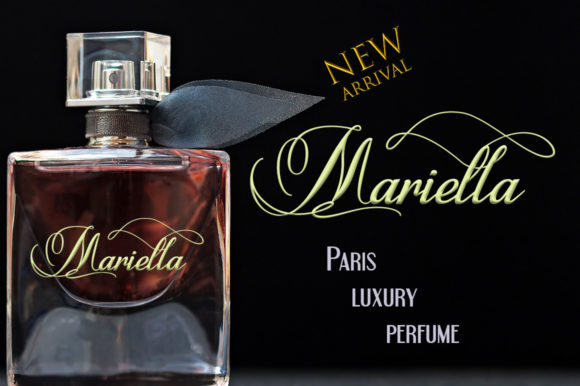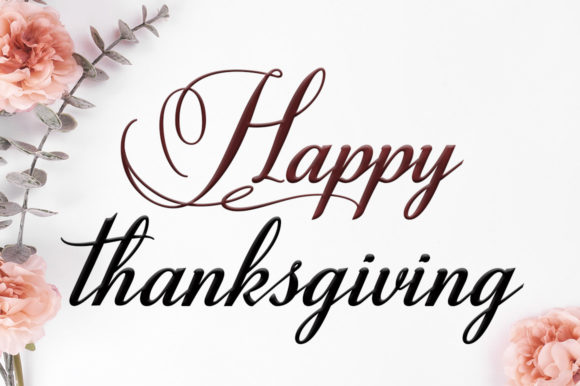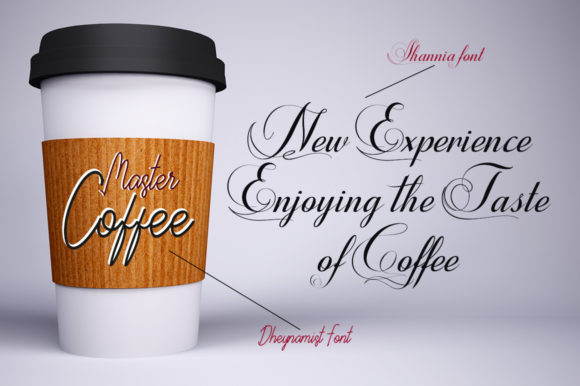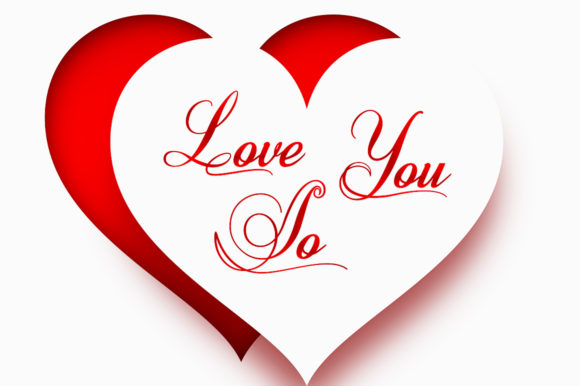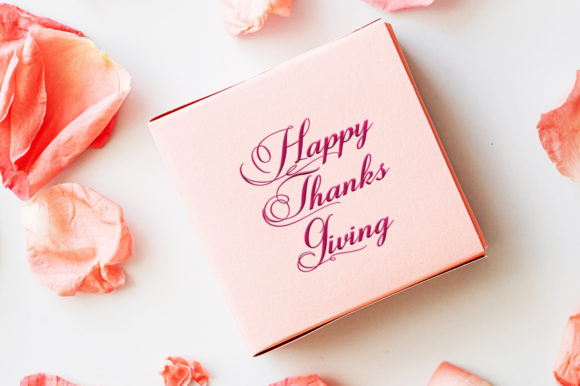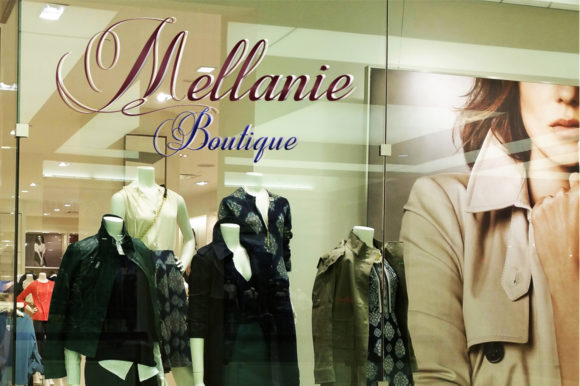
Introduction to Shannia Bold Font
As a designer, there’s nothing quite like the thrill of discovering a new font that perfectly captures the essence of your creative vision. For me, that moment came when I stumbled upon the stunning Shannia Bold Font. Its elegant script and modern flair instantly elevated my designs, giving them a touch of sophistication and luxury.
Whether you’re crafting packaging for a high-end product, designing an invitation card for a special occasion, or working on a script for a creative project, Shannia Bold Font is an invaluable design resource. With its PUA encoding, you can access all the glyphs and swashes with ease, making it a high-quality addition to your design arsenal. And the best part? It’s available for free download, complete with a transparent background, making it a versatile and convenient choice for designers.
Key Features of Shannia Bold Font
- Features a unique, bold font style with a transparent background, perfect for adding visual interest to designs.
- Perfect for designers seeking a high-quality, bold font for use in logos, headings, and other creative projects.
Honest Review: Shannia Bold Font
I recently stumbled upon the Shannia Bold Font, and I must say it’s been a game-changer for my design projects. The first thing that caught my eye was the high-quality design and crisp lines, making it perfect for use in a variety of creative projects. ✨
One of the standout features of this font is its versatility. It can be easily used in both digital and print-based designs, making it a valuable addition to any design resource. Plus, it’s free to download, which is always a bonus.
Another plus is the transparent background, which allows for seamless integration with other design elements. This makes it ideal for creating visually appealing and professional-looking designs.
However, I did encounter a few limitations while working with the Shannia Bold Font. ⚠️ The font can be quite heavy, making it difficult to use in small text sizes. Additionally, it may not be the best choice for designs that require a lot of intricate details or fine typography.
Overall, I’m thoroughly impressed with the Shannia Bold Font. Its high-quality design and versatility make it a valuable addition to any design resource. I would highly recommend it to designers looking for a reliable and stylish font.
- Versatile and easy to use
- Can be heavy and difficult to use in small text sizes
- May not be ideal for intricate details or fine typography
The Shannia Bold Font is ideal for use in headings, titles, and other prominent text elements. It is also suitable for use in creative projects such as logos, brochures, and social media graphics. With its high-quality design and transparent background, this font is perfect for adding a professional touch to your designs.